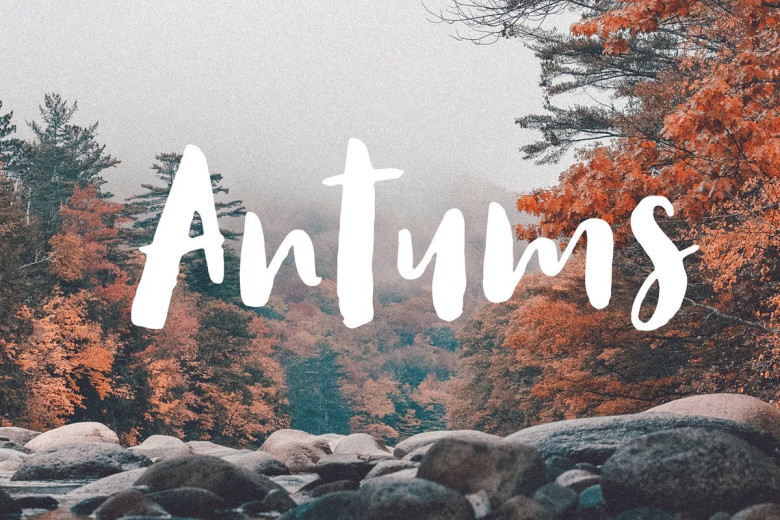
Antums Script Font
A script with a natural rough dry brush strokes, and the stroke of hand quickly. It is an attention to detail that Your Project not only needs, but most certainly deserves! Introducing Antums Brush Font. Antums designed and shared by Siwox Studios. A handrawn brush font style, designed especially for you. For designers, instagramers, bloggers, youtubers, fashion lovers or somebody who Loves Fresh design. Every creative love something new. Thats why We love handmade and freestyle designs, because it will make us look Unique and Fresh. Antums Brush Fonts ready to make your design shining and sparkling..
Antums Brush Fonts suitable for any modern design such as for ad banner, modern card, invitation, announcement, seasonal design, social media promotion, web design, branding and logo stylist and many more.